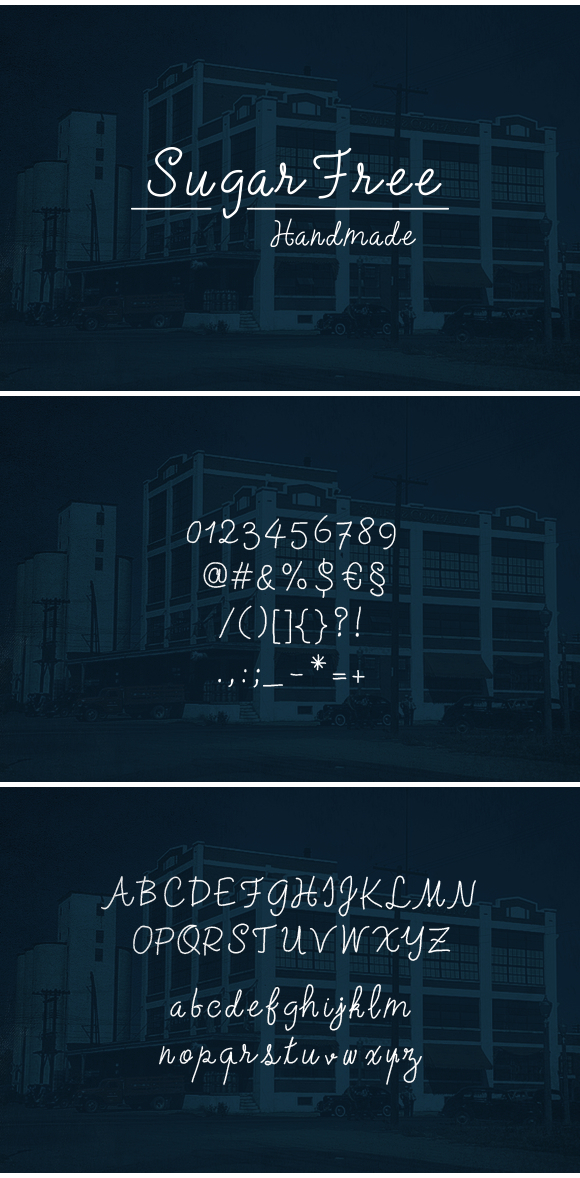
SugarFree Script Font
SugarFree is a handwritten script font with varying baseline, which is designed to convey elegance and style. Can be used for various purposes.such as headings, logos, wedding invitation, t-shirt, letterhead, signage, lable, news, posters, badges etc. To enable the OpenType Stylistic alternates, you need a program that supports OpenType features such as Adobe Illustrator CS, Adobe Indesign & CorelDraw X6-X7.
| Classification: | Handwritten Fonts, Script Fonts |